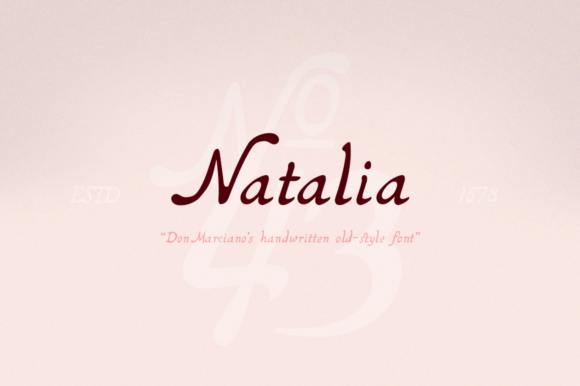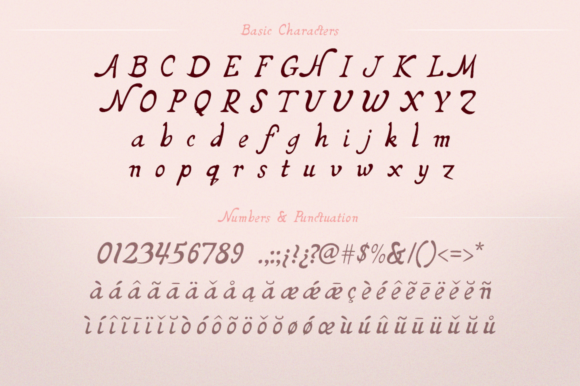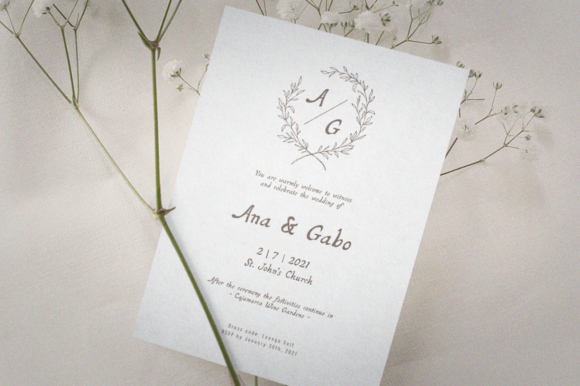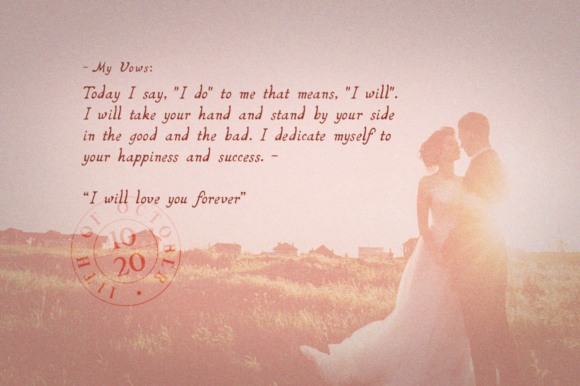
About Natalia Font
Introducing Natalia, a delicate, elegant, and flowing handwritten font that exudes beauty and grace. This font is a true masterpiece, meticulously crafted with beautiful and well-balanced characters, making it a perfect match for a wide range of design projects. Add Natalia to your most creative ideas, and witness how it breathes life into your creations, elevating them to new levels of enchantment and allure.
Natalia’s delicate and flowing style creates an air of refinement and sophistication. Each letter dances gracefully, as if penned with the skill of a master calligrapher. Whether you’re designing wedding invitations, love letters, inspiring quotes, or any other creative endeavor, Natalia adds a touch of elegance that captivates and delights.
The font’s versatility knows no bounds. As you incorporate Natalia into your designs, you’ll discover how effortlessly it complements various projects. From branding and logo design to social media graphics, blog headers, and digital artwork, Natalia’s charm enriches your creations with its exquisite appeal.
Imagine using Natalia for special moments and cherished occasions. The font’s delicate and elegant touch elevates the emotions and atmosphere, creating an enchanting experience for your audience.
In typography art, Natalia becomes a captivating centerpiece. Use it to create stunning prints that adorn any space with beauty and grace. The font’s well-balanced characters add an element of sophistication to your artwork, making it a focal point of admiration.
For quotes that resonate with authenticity and warmth, Natalia brings an aura of timeless wisdom. Whether shared on social media or showcased on beautifully printed wall art, your messages will captivate with a touch of elegance.
Greeting cards and stationery become works of art with Natalia. Be it birthdays, holidays, or special moments, the font’s delicate and flowing script makes your greetings truly stand out, leaving recipients in awe of your thoughtful designs.
In conclusion, Natalia is more than just a font; it’s an embodiment of delicacy and elegance. With its flowing handwritten style and well-balanced characters, Natalia becomes an essential asset for all your design projects. Embrace the beauty and grace of Natalia and watch as your creations come alive with enchantment and allure. Let your creativity soar in the delicate and elegant embrace of Natalia, the handwritten font that defines sophistication and beauty.